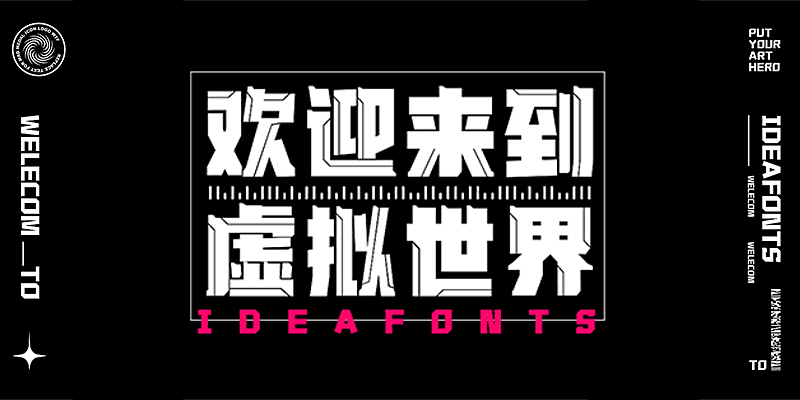
HelloFont ID Ji Xie Ti Font Free Download is a modern, clean, and highly legible sans-serif typeface, designed for versatility and readability. Its minimalistic design makes it ideal for a wide range of applications, including websites, user interfaces, branding, logos, and print projects that require a sleek, professional aesthetic.
With its balanced letterforms and straightforward structure, HelloFont ID Ji Xie Ti works well for both large headlines and smaller text, providing excellent clarity in both digital and print environments. It integrates easily with design tools like Adobe Illustrator, Photoshop, Figma, and Canva.